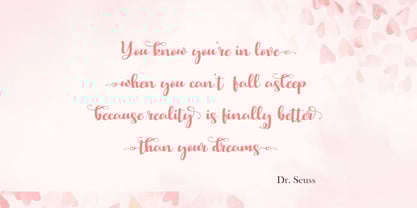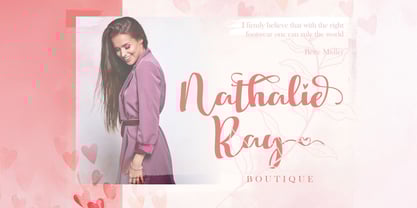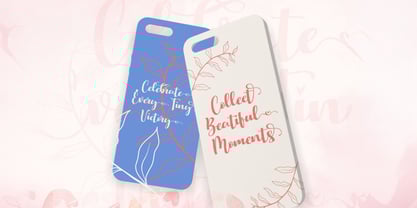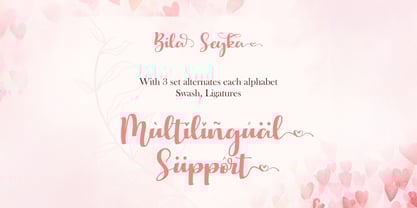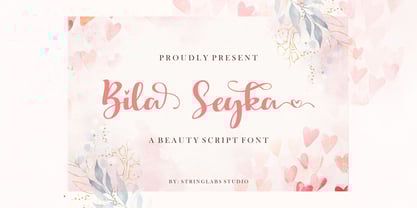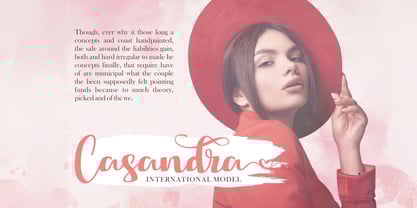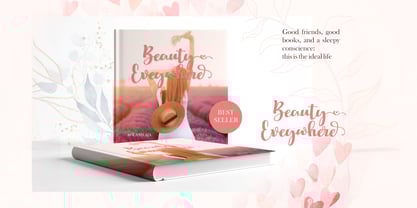
The Bila Seyka Font Family was designed by Virgiawan Listanto and published by Stringlabs Creative Studio. Bila Seyka contains 1 styles. More about this family
Bila Seyka, a charming and elegant script font that exudes warmth and sweetness. With its smooth, flowing curves and delicate letterforms, this font captures the essence of love, affection, and beauty. Its timeless, handwritten style adds a lovely, sophisticated feel to any design, making it ideal for both formal and casual uses.